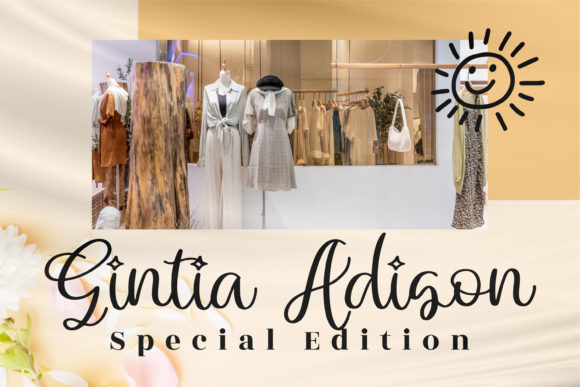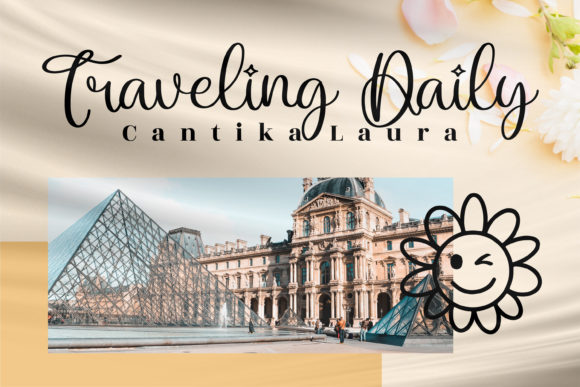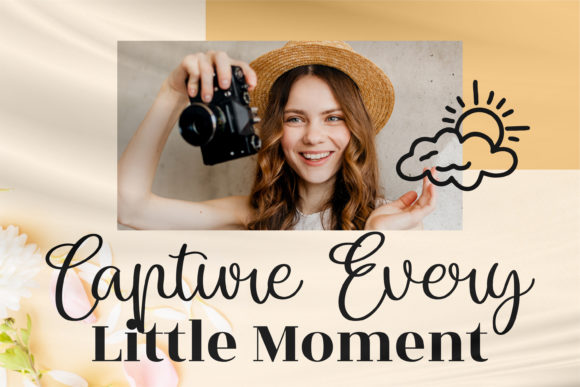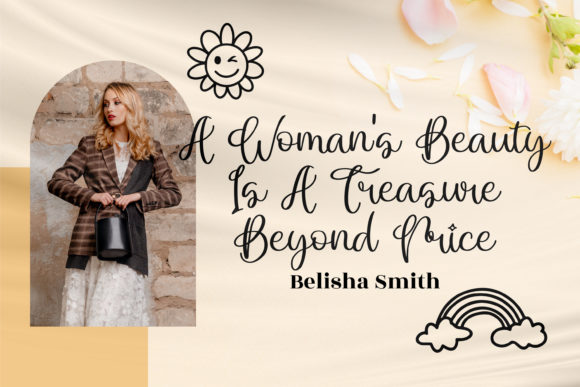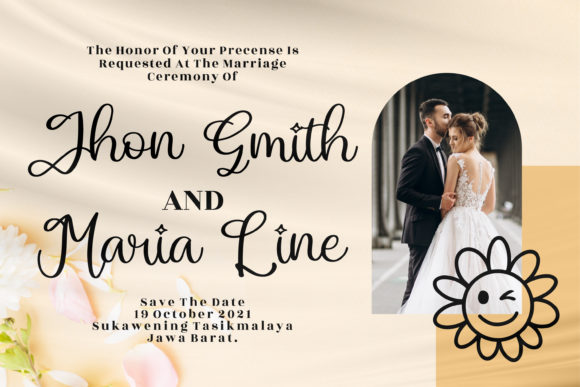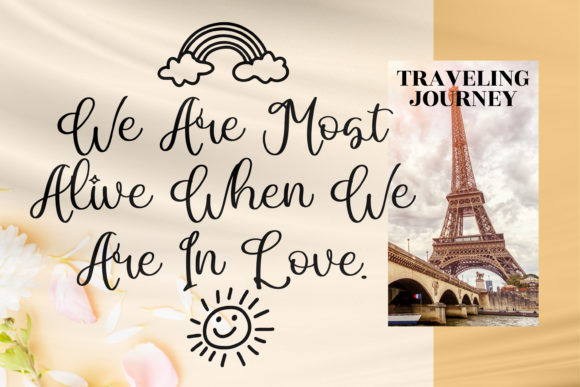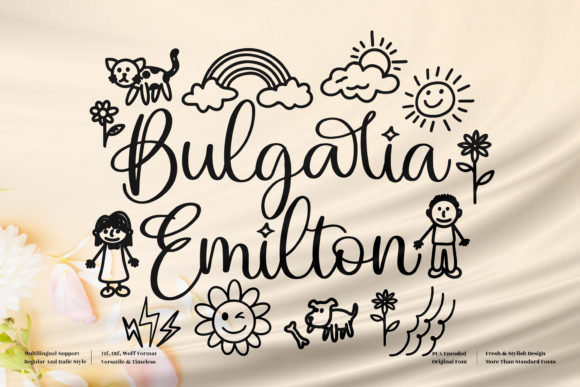
Bulgaria Emilton Font: Elevate Your Designs with Elegance and Sophistication
In the world of typography, a font can make or break a design. It’s the perfect blend of style, elegance, and readability that can elevate a creation from ordinary to extraordinary. If you’re a designer, crafty enthusiast, or simply someone who appreciates beautiful typography, then you’re in for a treat. Introducing Bulgaria Emilton, a dazzling script font that is sure to become a prized addition to your font library.
What Makes Bulgaria Emilton Stand Out?
Bulgaria Emilton is not just any font; it’s a masterpiece of craftsmanship. This script font is meticulously designed with attention to detail, ensuring that every letter, every swash, and every glyph is a work of art. Its neat and highly detailed structure makes it versatile enough to be used across various design projects, from elegant branding and advertising to beautiful stationery and digital media.
Key Features of Bulgaria Emilton Font
- PUA Encoding: One of the standout features of Bulgaria Emilton is its PUA (Private Use Area) encoding. This means that accessing all the glyphs and swashes is incredibly straightforward. With PUA encoding, designers can easily access and use the extended character set, including swashes, ligatures, and stylistic alternates, without the need for complicated software or workarounds.
- Versatility: Whether you’re working on a logo, a wedding invitation, a packaging design, or a website, Bulgaria Emilton has the potential to enhance any creation. Its elegant and sophisticated style can adapt to a wide range of topics and themes, making it an incredibly versatile asset for any designer.
- Highly Detailed and Neatly Crafted: The font’s meticulous design ensures that it looks great at any size. Whether you’re using it for a large billboard or a small business card, Bulgaria Emilton maintains its elegance and readability, ensuring that your design always looks professional and polished.
Why Choose Bulgaria Emilton for Your Designs?
Choosing a font for a design project can be overwhelming, given the vast number of options available. However, Bulgaria Emilton stands out for several reasons:
- Elegance and Sophistication: In a world where design trends are constantly evolving, Bulgaria Emilton offers a timeless elegance that won’t go out of style. Its sophisticated look can elevate any design, making it perfect for brands and designers who want to convey luxury, elegance, and refinement.
- Time-Saving: With its comprehensive set of glyphs and swashes, Bulgaria Emilton saves designers time and effort. There’s no need to spend hours trying to create custom letters or swashes; everything you need is right at your fingertips.
How to Use Bulgaria Emilton in Your Designs
- Experiment with Different Sizes: Bulgaria Emilton looks great at any size, so don’t be afraid to experiment. Try using it for headings, subheadings, and even body text to see how it works in different contexts.
- Play with Swashes and Glyphs: One of the fun aspects of using Bulgaria Emilton is exploring the range of swashes and glyphs available. Use them to add personality to your design and make it stand out.
- Pair it with Other Fonts: While Bulgaria Emilton is stunning on its own, it can also be paired with other fonts to create interesting and dynamic designs. Try pairing it with a clean sans serif font for a contrasting look.
| Font Name | Bulgaria Emilton Font |
Bulgaria Emilton is more than just a font; it’s a design asset that can elevate your creations to new heights. With its dazzling script, meticulous craftsmanship, and versatile design, it’s an excellent choice for designers and crafters looking to add a touch of elegance and sophistication to their work. Whether you’re working on a branding project, a personal craft, or a professional design, Bulgaria Emilton is sure to become a prized addition to your font library.